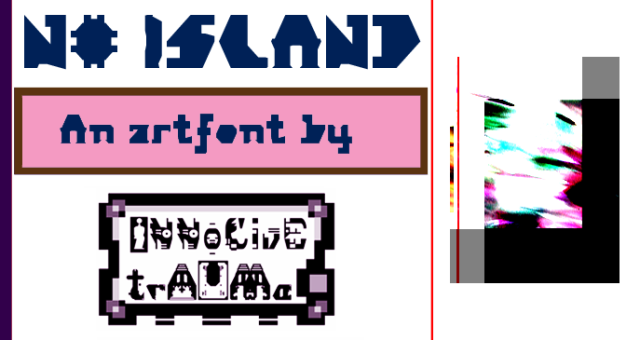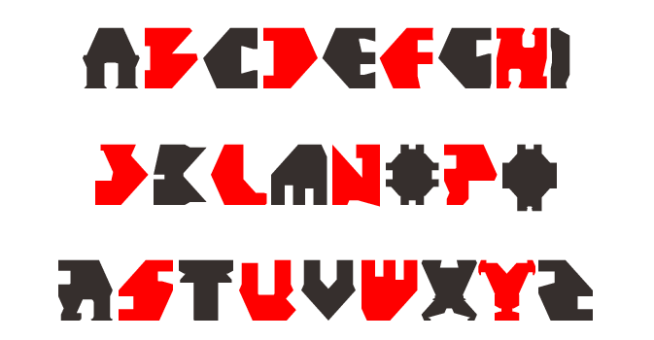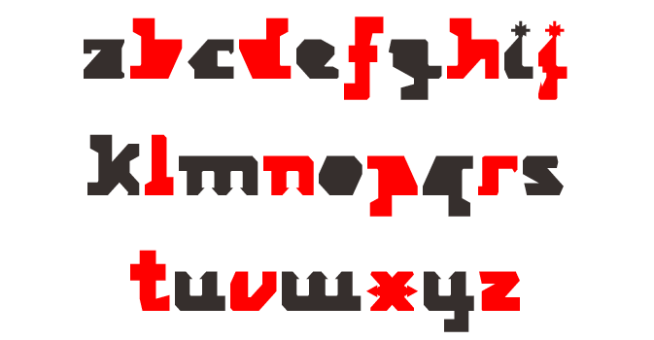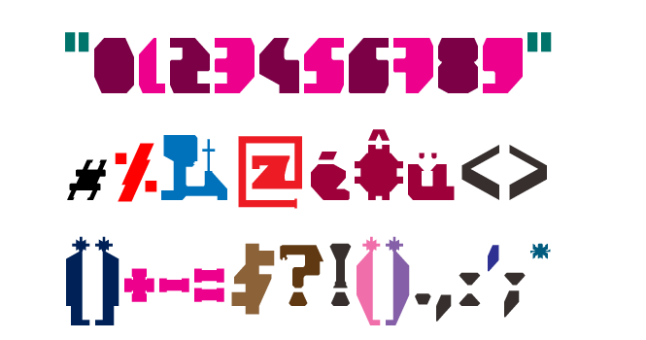
trAUMa 71 / No Island
"No Island", like all the "trAUMa" series, works at the frontier between Art & Type Design, Figuration & Abstraction, each font is a comprehensive world in which every glyph is a "living" entity. But put together they can produce your messages in the most accurate way.